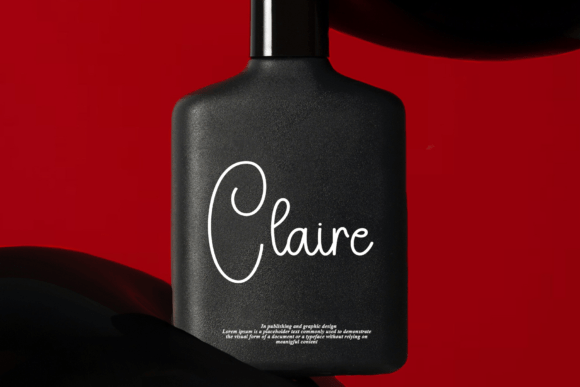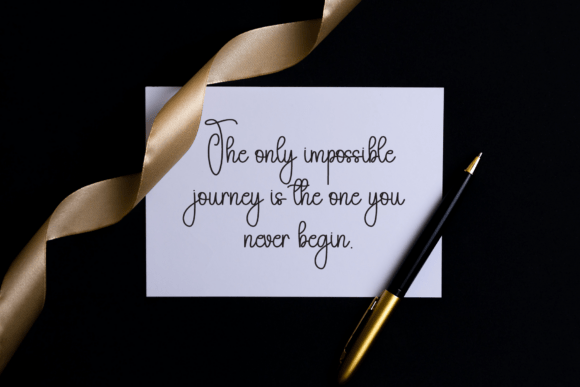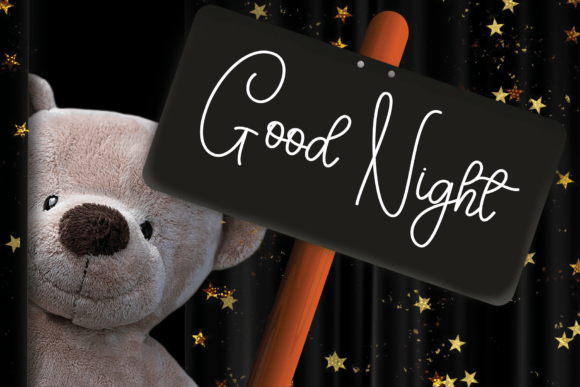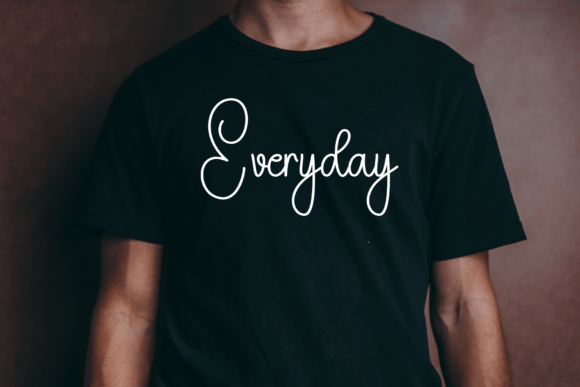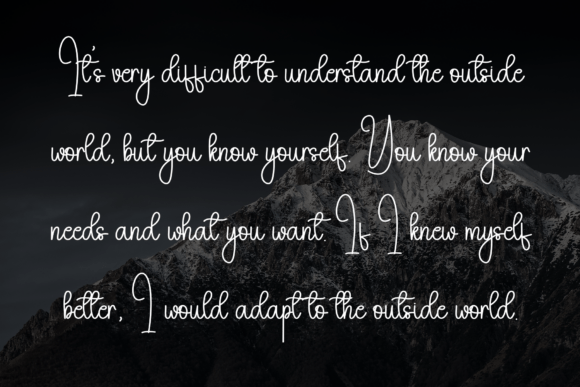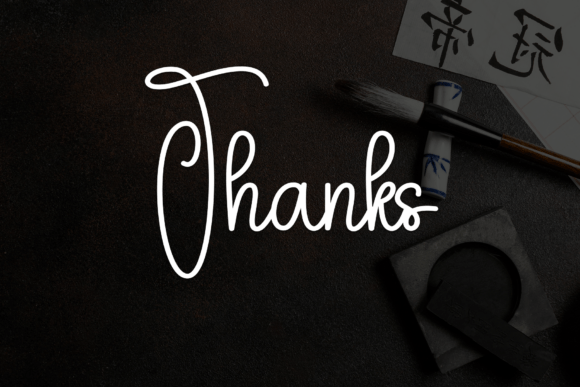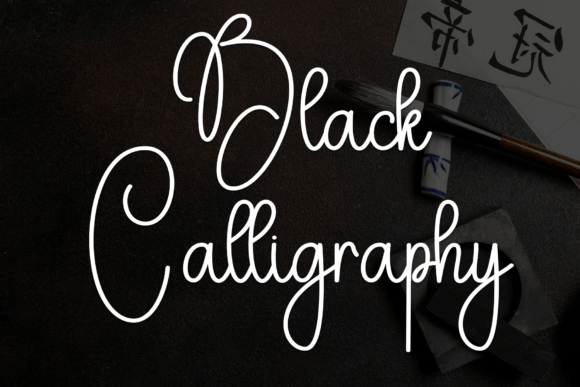
Elevate Your Designs with the Elegance of Black Calligraphy Font
Are you searching for a font that embodies both elegance and personality? Look no further than the Black Calligraphy Font. This stunning handwritten script font is designed to bring a touch of sophistication and refinement to any design project. With its graceful curves and artistic flow, Black Calligraphy is perfect for creating beautiful and eye-catching designs that demand attention.
The Characteristics of Black Calligraphy Font
Black Calligraphy is a carefully crafted font that boasts smooth, fluid strokes and balanced letterforms, creating a natural handwritten feel that is both effortless and refined. The font’s extensive character support and versatile ligatures make it incredibly versatile, allowing it to adapt seamlessly to both modern and classic aesthetics.
Whether you’re designing invitations, wedding stationery, boutique logos, social media branding, or product packaging, Black Calligraphy is the perfect choice. Its elegant and refined appearance makes it ideal for creating romantic headlines, stylish signatures, and sophisticated text-based designs.
One of the standout features of Black Calligraphy is its PUA (Private Use Area) encoding. This means that all glyphs, swashes, and alternate characters are easily accessible, allowing you to customize your creations with ease. With Black Calligraphy, you can add your own personal touch to any design, making it truly unique and reflective of your style.
The font’s flexibility is also due in part to its comprehensive character set, which includes:
- Uppercase and lowercase letters
- Numbers and punctuation
- Ligatures and swashes
- Alternate characters and glyphs
This extensive character set ensures that you have everything you need to create stunning text-based designs that are both visually appealing and highly customizable.
Black Calligraphy is a highly versatile font that can be used in a wide range of design applications. Some of the most popular uses for this font include:
- Invitations and Wedding Stationery: Add a touch of elegance and sophistication to your wedding invitations, save-the-date cards, and other stationery with Black Calligraphy.
- Boutique Logos and Branding: Create a stylish and memorable logo for your boutique or small business with Black Calligraphy.
- Social Media Branding: Elevate your social media presence with Black Calligraphy, perfect for creating eye-catching graphics and posts.
- Product Packaging: Add a touch of luxury and sophistication to your product packaging with Black Calligraphy.
Why Choose Black Calligraphy Font?
With so many fonts available, why choose Black Calligraphy? Here are just a few reasons why this font stands out from the rest:
- Elegant and Refined: Black Calligraphy boasts a sophisticated and elegant appearance that’s perfect for designs that demand attention.
- Highly Customizable: With PUA encoding and an extensive character set, Black Calligraphy is incredibly versatile and easy to customize.
- Timeless Sophistication: Black Calligraphy delivers timeless sophistication and creative flexibility, making it perfect for a wide range of design applications.
In conclusion, Black Calligraphy Font is a stunning handwritten script font that is perfect for designers and crafters looking to add a touch of elegance and sophistication to their designs. With its smooth, fluid strokes, balanced letterforms, and extensive character support, Black Calligraphy is the perfect choice for creating beautiful and eye-catching designs that demand attention.